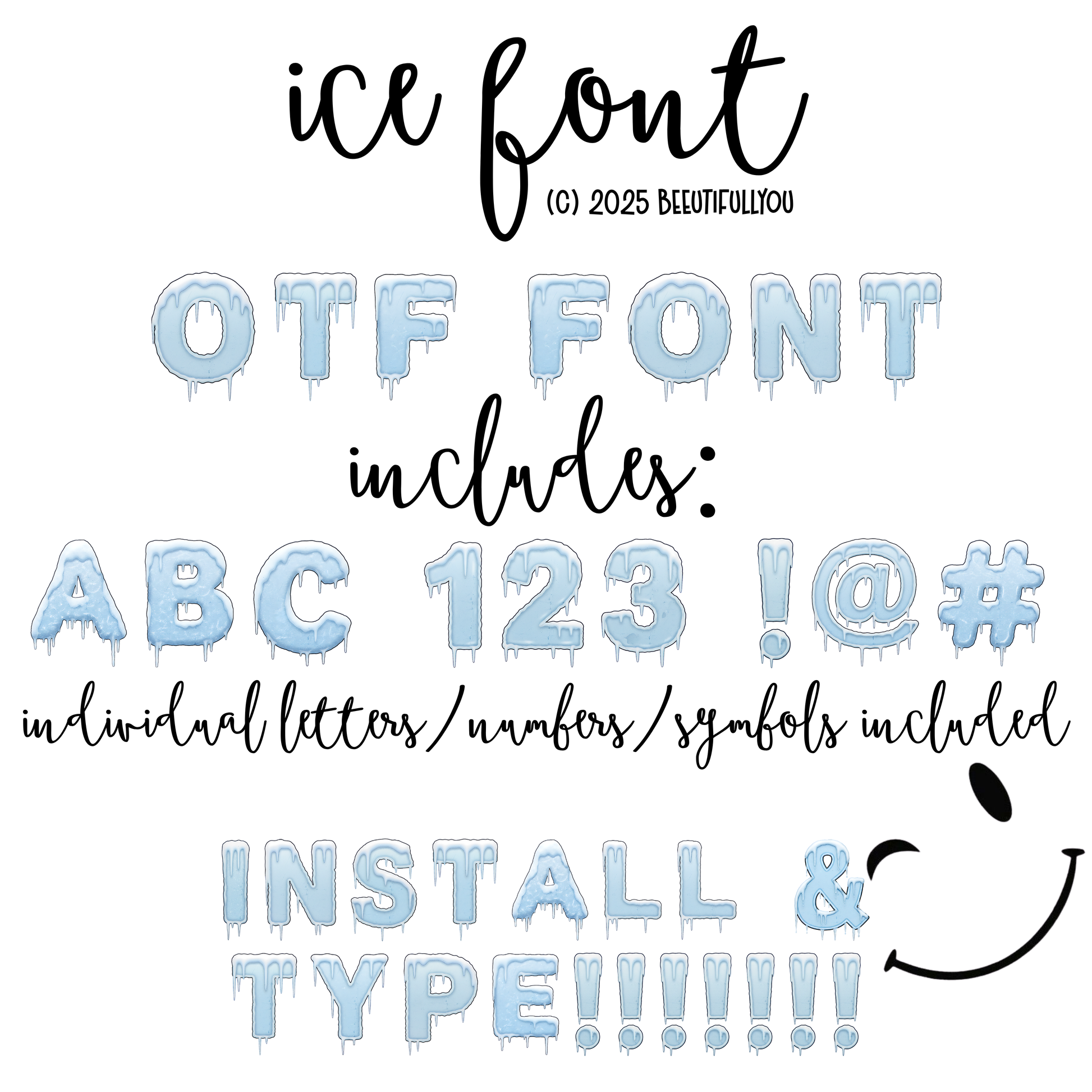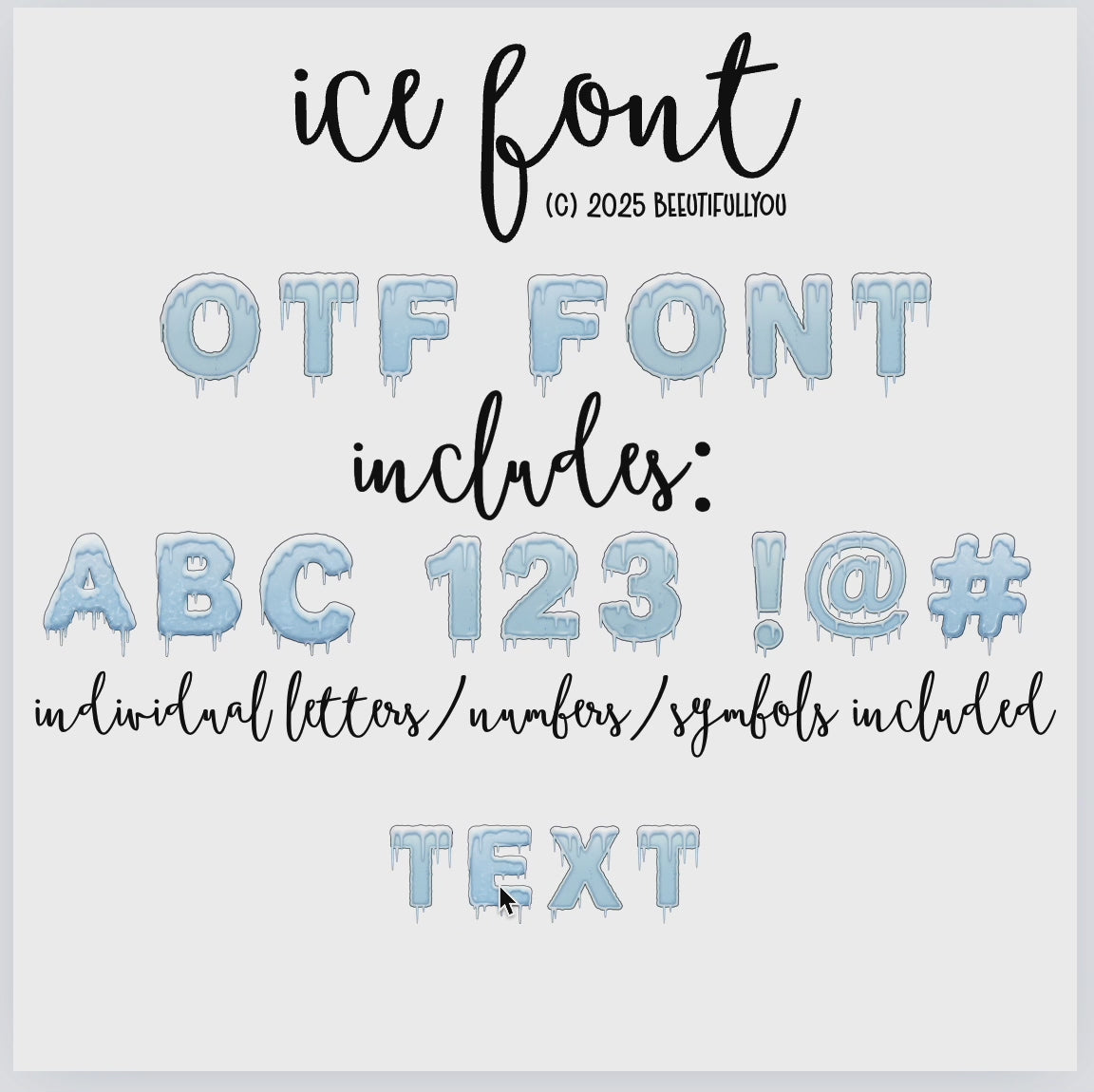
Ice Font OTF + PNG Letters | Dripping Frozen Style Alphabet, Numbers & Symbols | Installable & Individual letters, numbers and symbols Included
Bring the chill to your designs with this Ice OTF Font! ❄️✨
This frozen, dripping style font is perfect for winter projects, holiday designs, logos, shirts, mugs, invitations, and more. With both the installable OTF font file and individual PNG letters/numbers/symbols included, you can design with flexibility and ease.
High-quality hand-drawn look with icy drips and frosty textures
Start typing in icy style!
Make your designs stand out this season with the coolest font around – literally! ❄️💙